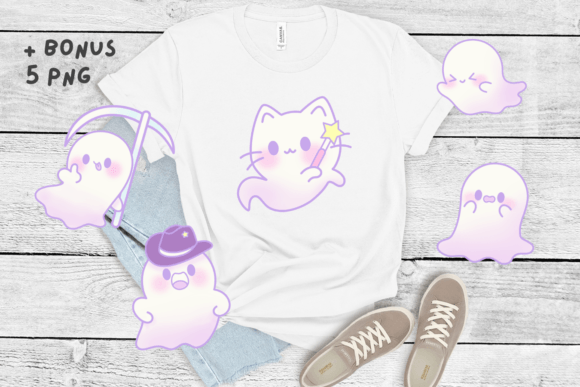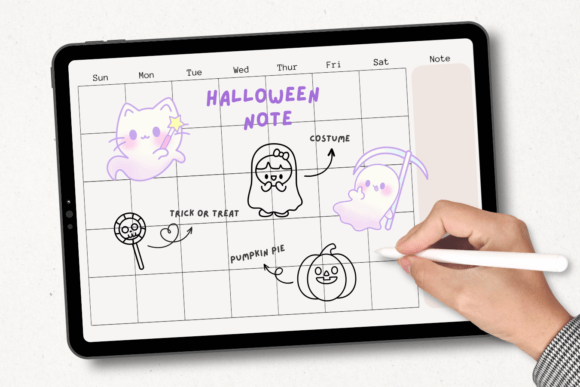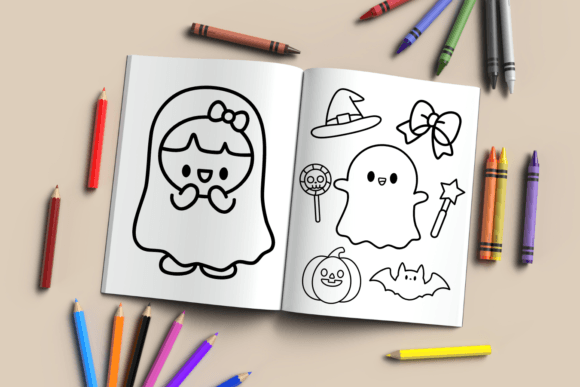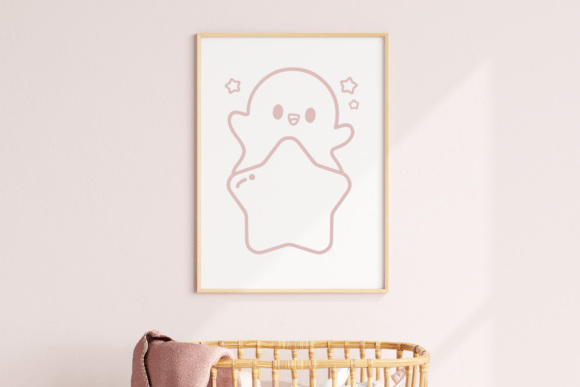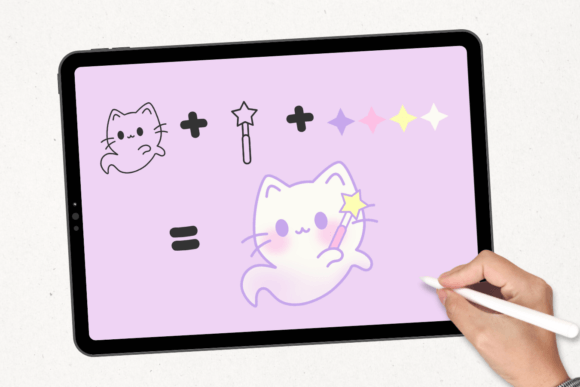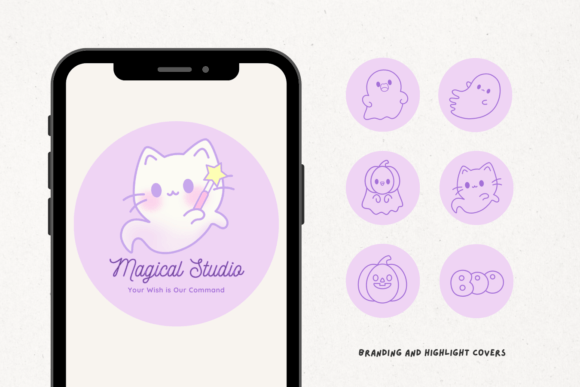
The Magical World of Ghost Doodle Font: A Designer’s Delight
I’ll never forget the time I was working on a children’s book project, and my client asked for a font that would make their story feel like a warm hug. I scoured the internet, trying out font after font, but nothing seemed quite right. That was until I stumbled upon the Ghost Doodle Font. Its adorable ghost-inspired doodles instantly brought a smile to my face, and I knew I had found the perfect fit. In this article, I’ll share my love for this whimsical typeface, its features, and how to make the most of it in your designs.
A Personal Review: What I Love About Ghost Doodle Font
Here’s what makes Ghost Doodle Font a standout in my book:
- ✨ Adorable ghost decorations that add a playful touch to any design
- ✅ Perfect for kids’ projects, but also versatile enough for logos, greeting cards, and more
- 🎨 Highly customizable with OpenType features and glyphs
- 💕 Eases the design process with its extensive set of stylistic alternates
While Ghost Doodle Font is a delightful addition to any project, there are a few things to keep in mind:
- 🤔 Some characters may require manual adjustment for optimal spacing and alignment
- ⚠️ Not suitable for body text due to its decorative nature; best used for headings or titles
The Backstory Behind Ghost Doodle Font
Imagine a designer who loves Halloween and doodling. They wanted to create a font that captures the magic and playfulness of ghosts and doodles. With a passion for creating fonts that bring joy, they designed Ghost Doodle Font to be a versatile and delightful addition to any project. The result is a font that’s both spooky and sweet, perfect for a wide range of creative endeavors.
| Font Name | Ghost Doodle Font |
| Author | Babymimiart |
| Can I use Ghost Doodle Font for my children’s book? | Absolutely! Ghost Doodle Font’s playful and adorable ghost decorations make it an excellent choice for kids’ books and educational materials. |
| Does Ghost Doodle Font include OpenType features? | Yes, Ghost Doodle Font comes with a range of OpenType features, including glyphs and stylistic alternates, allowing for high customization. |
| Can I use Ghost Doodle Font for logos and branding? | Yes, Ghost Doodle Font’s unique and playful style makes it suitable for logos, branding, and other creative projects where you want to add a touch of whimsy. |
Ghost Doodle Font is more than just a typeface; it’s a way to add a dash of whimsy and charm to your designs. Whether you’re working on a children’s book, a logo, or a greeting card, this font’s adorable ghost decorations are sure to bring a smile to your audience’s faces. With its ease of use and versatility across various design platforms, Ghost Doodle Font is a delightful addition to any creative project.